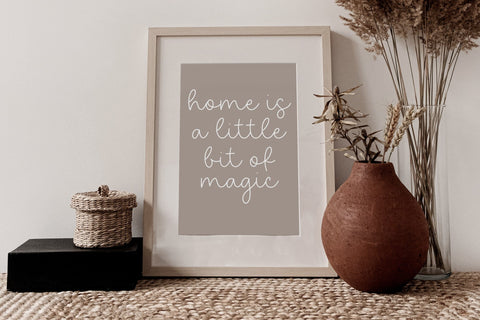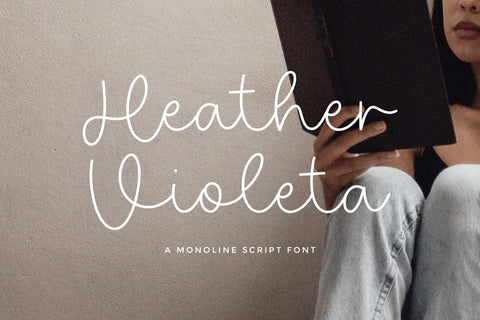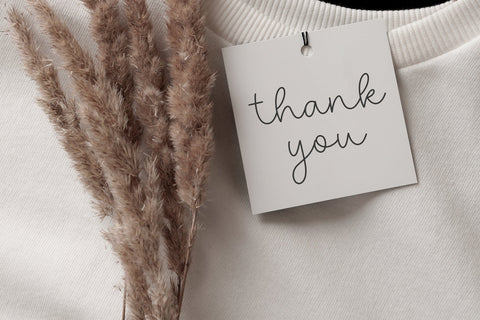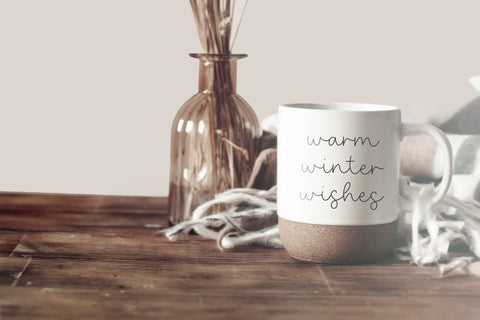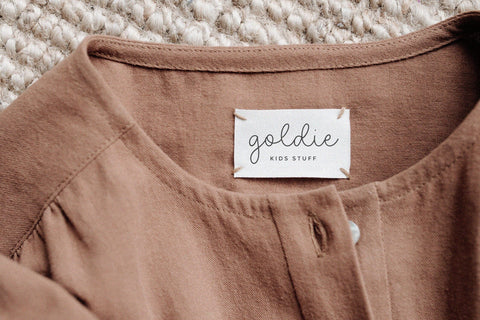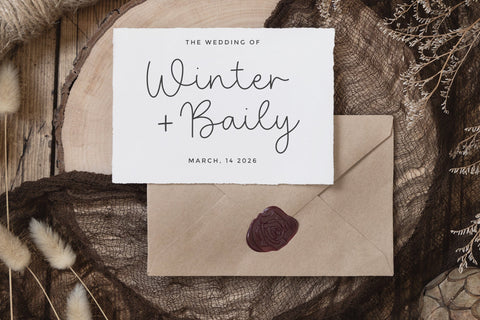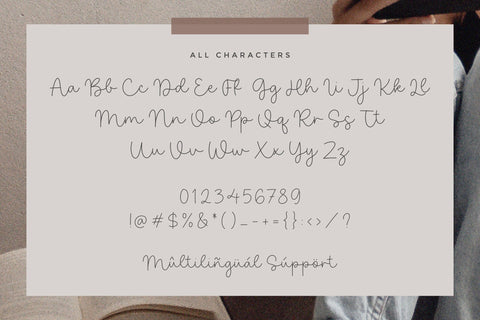
Heather Violeta - Handwritten Script font
Proudly Present, Heather Violeta
Heather Violeta A Handwritten Script Font , which was created with great care and specially created for you 😊
Heather Violeta is perfect for product packaging, branding project, megazine, social media, wedding, or just used to express words above the background.